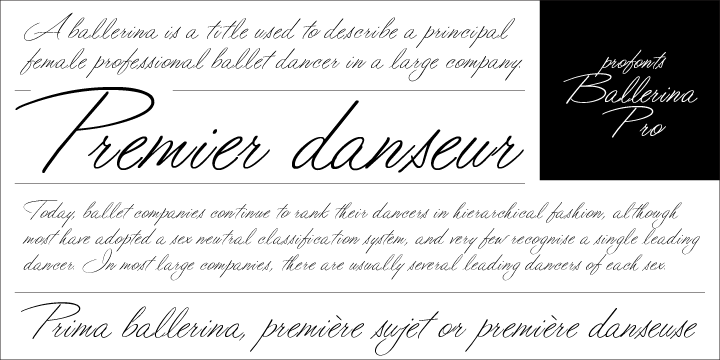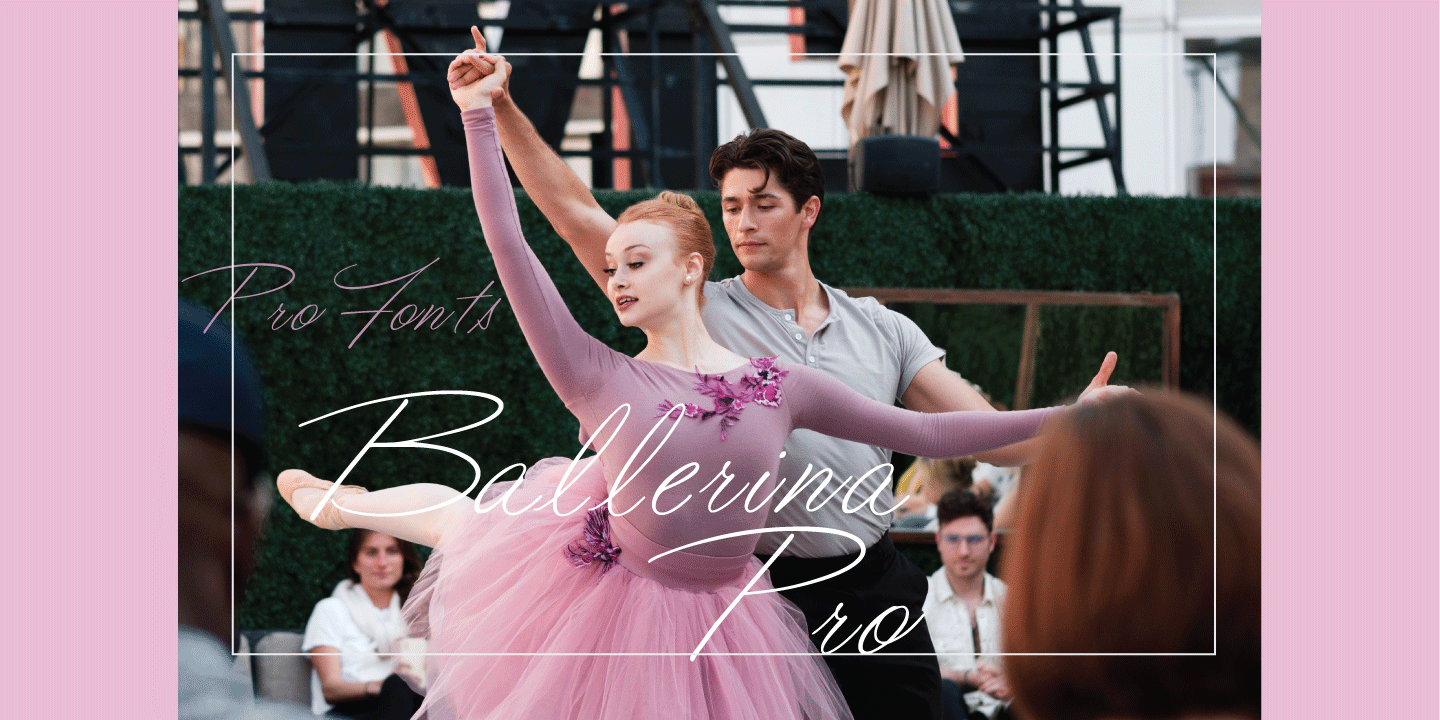
Ballerina Pro… sounds like music, ballet, elegance and classic quality. That's exactly how Ballerina Pro carries the message to the reader. Ballerina Pro is more of a formal script, light-weighted and quite beautiful, redesigned, digitized, completed and expanded as OpenType in the profonts type studio.
Ballerina Pro comes with round about 600 characters covering the complete Latin glyph set for West and East including Baltic and Turkish. Addionally, there is a large selection of manually designed character combinations and alternates to make this beautiful script design a perfect font for OTF-savvy applications like e.g. InDesign or Quark Xpress 7+
Ballerina Pro is a very distinguished, elegant and versatile script font well-suited for anything in the area of ballet, classical music, art, ballet etc. Also, it is good for certificates, reports, documents and alike.